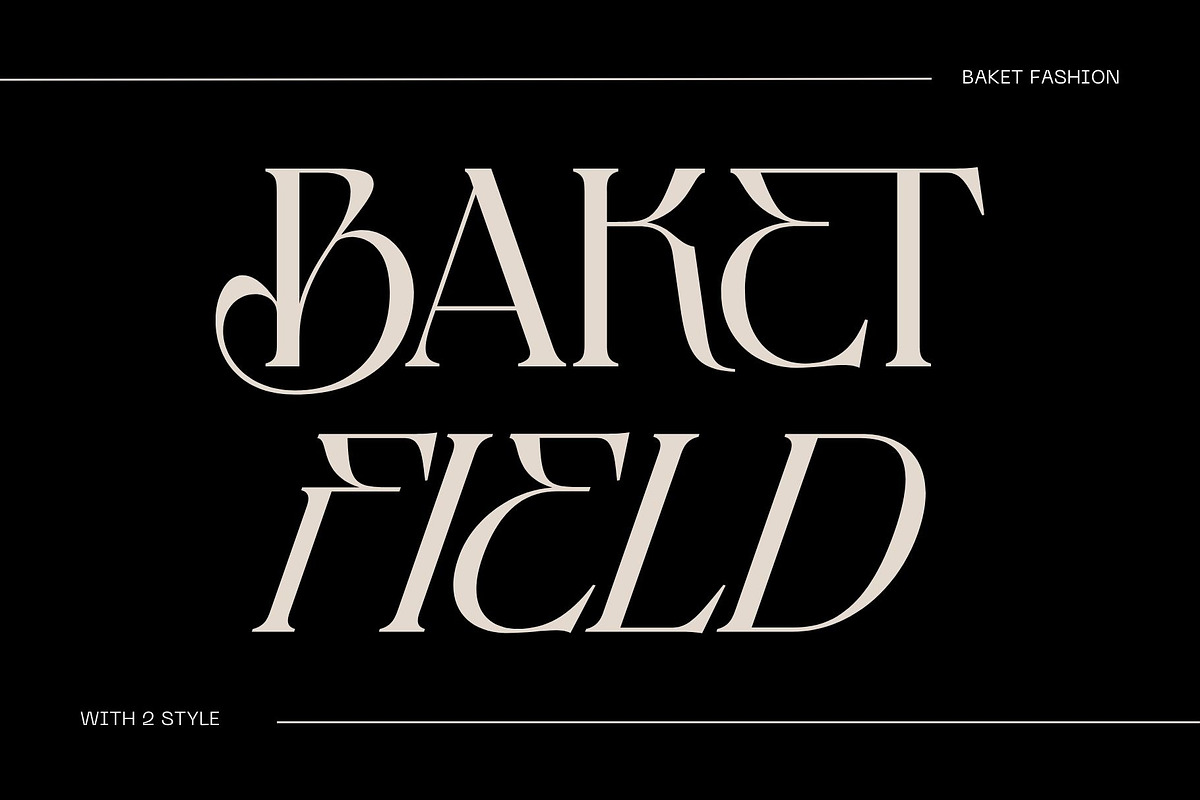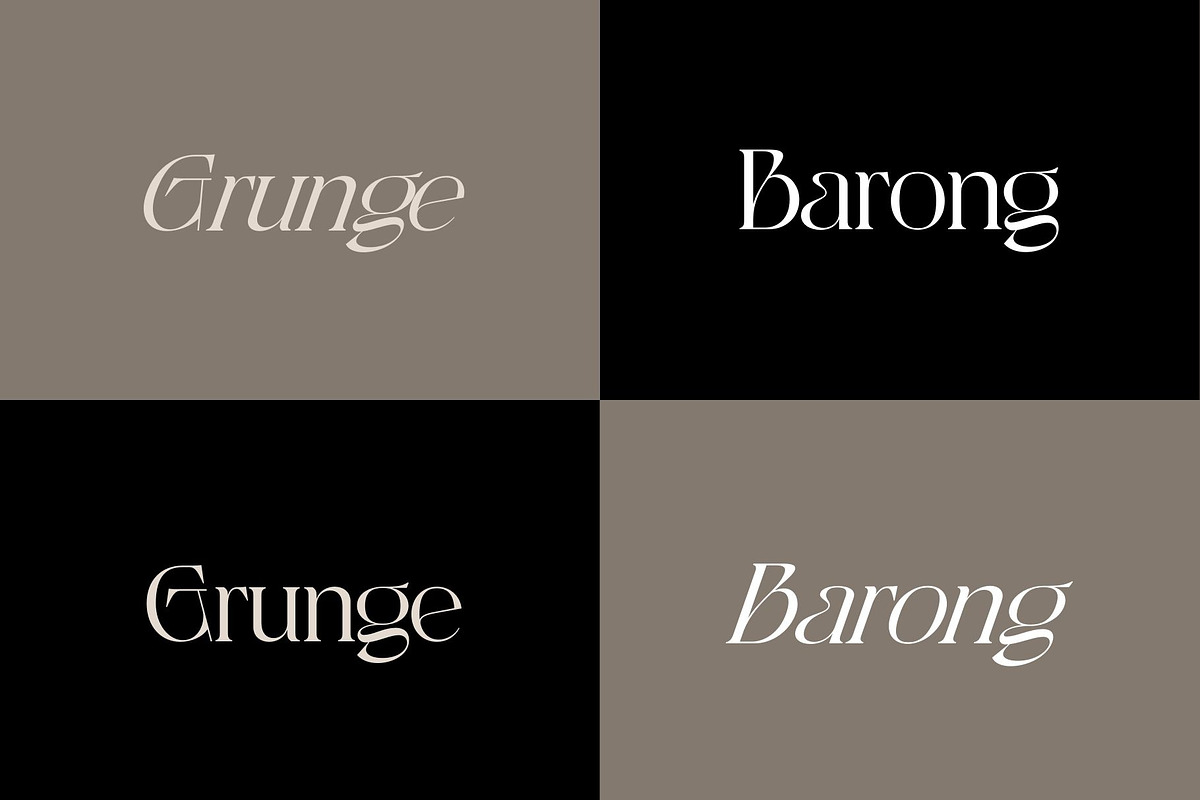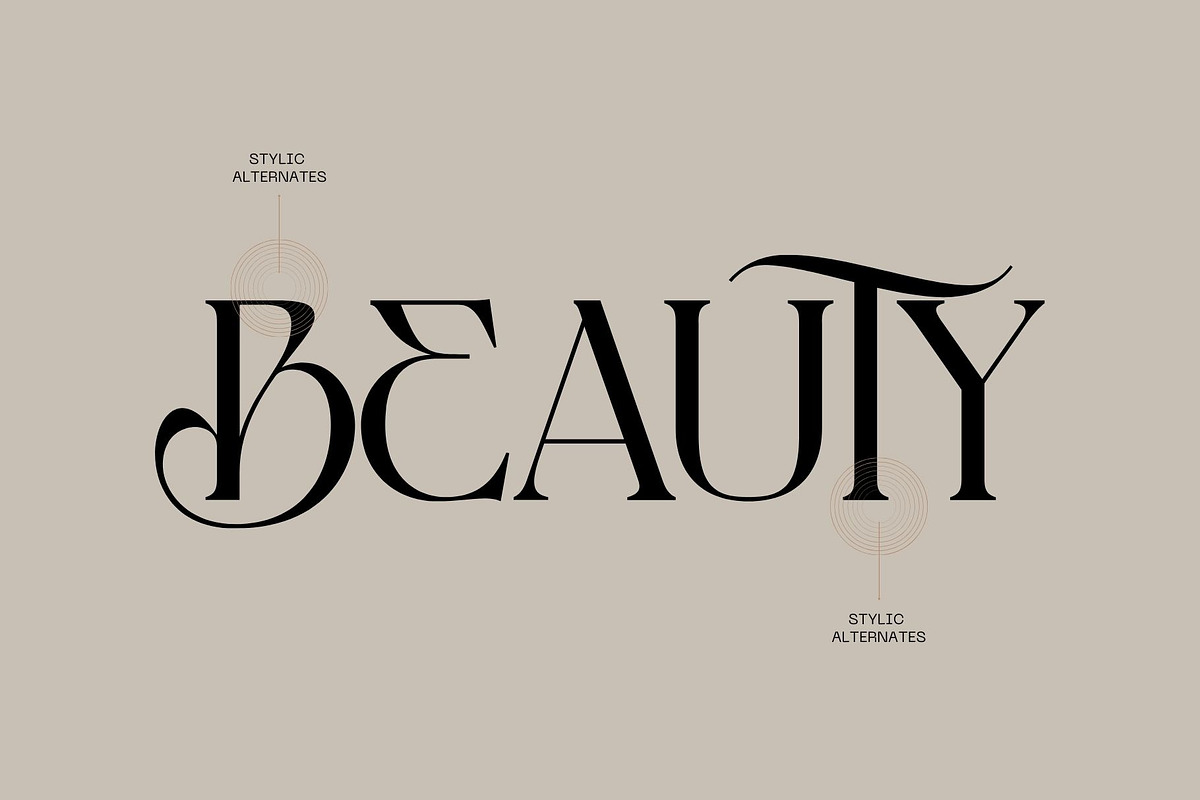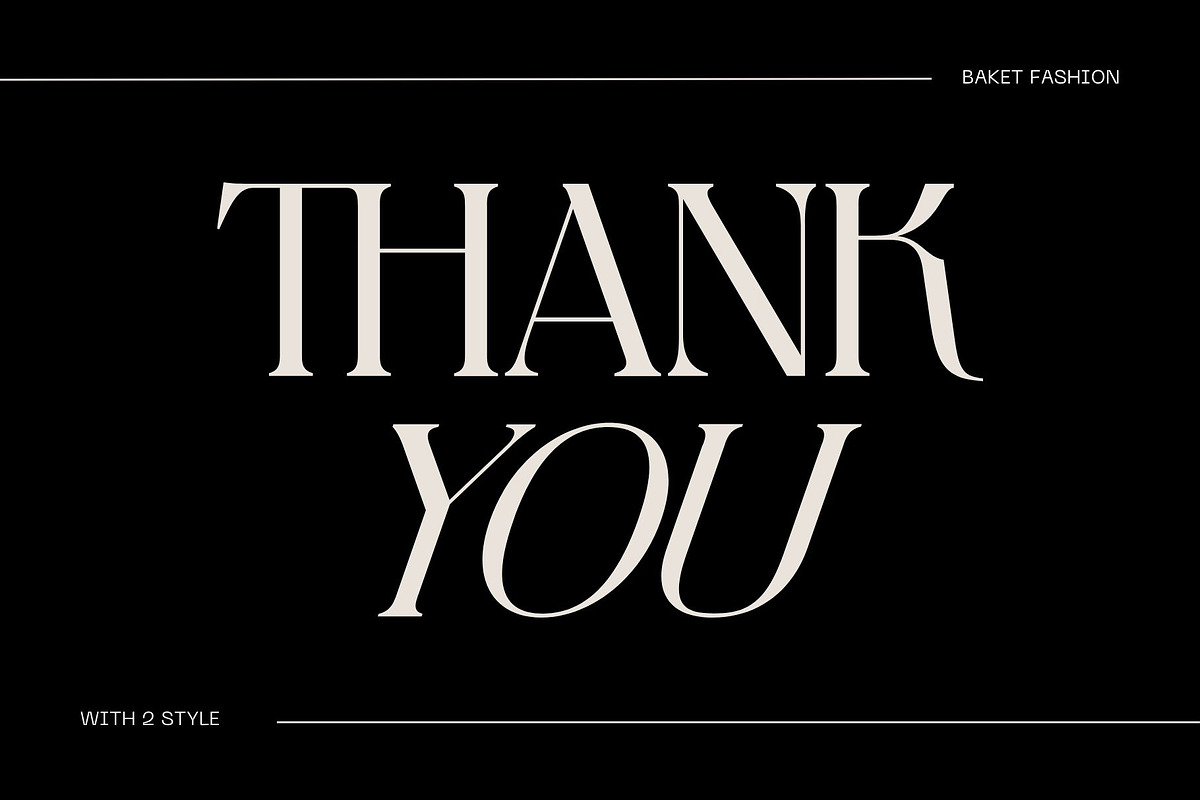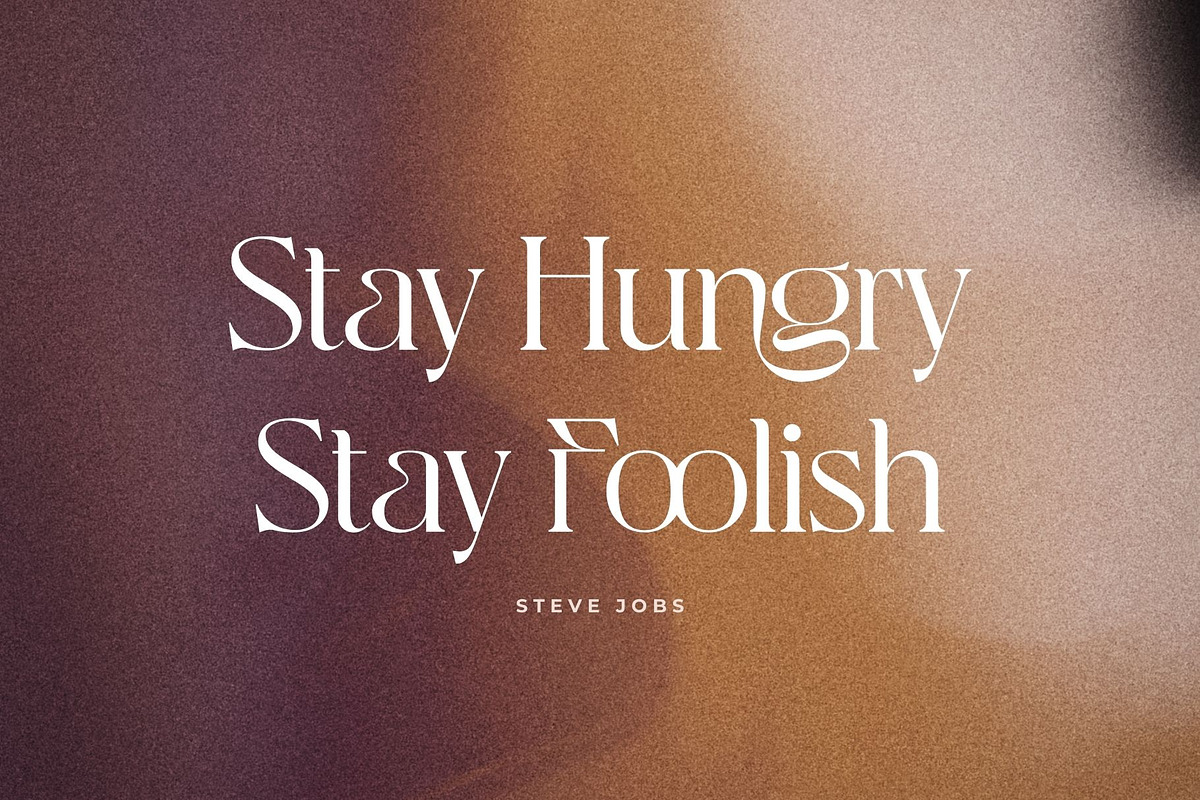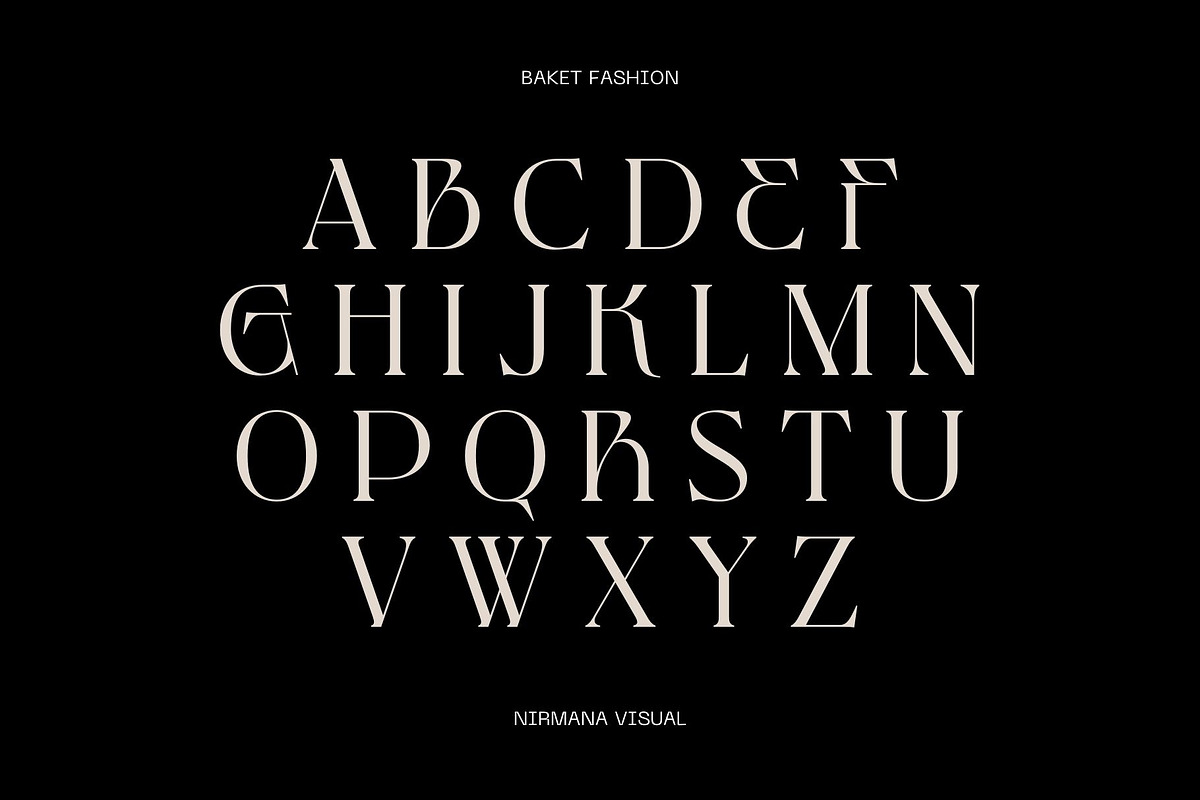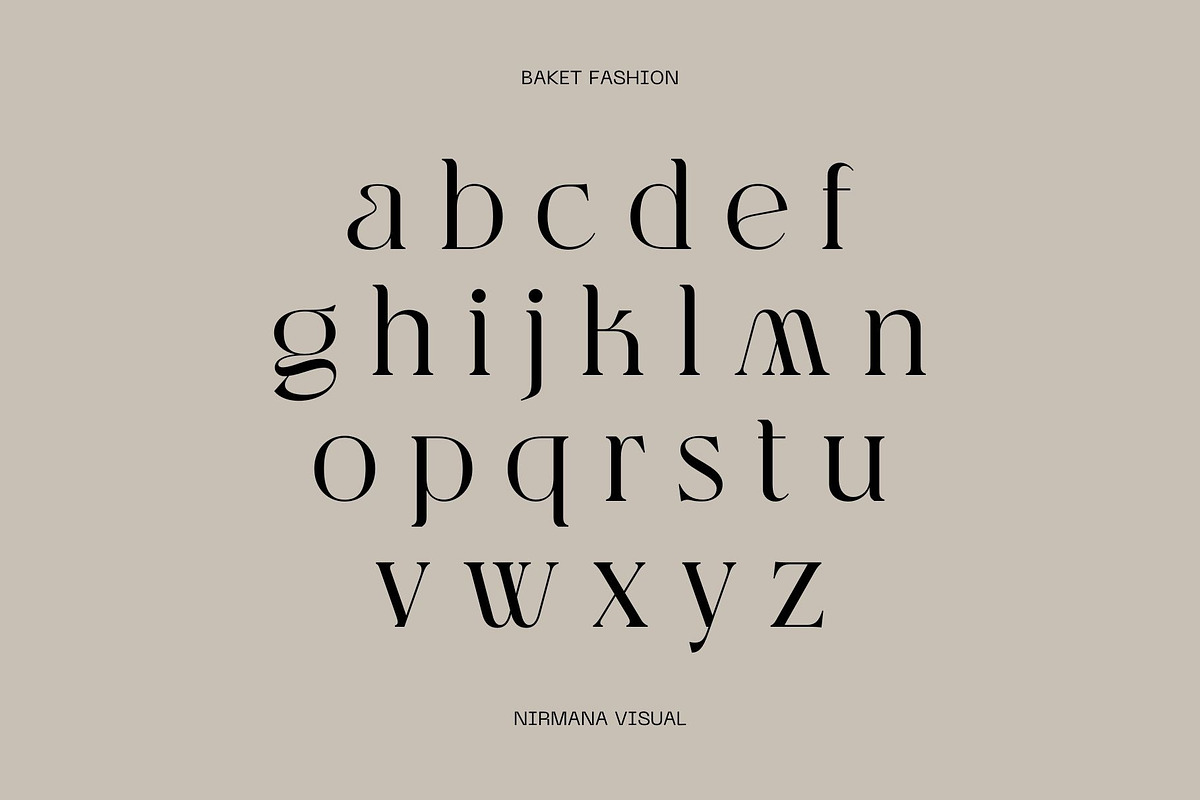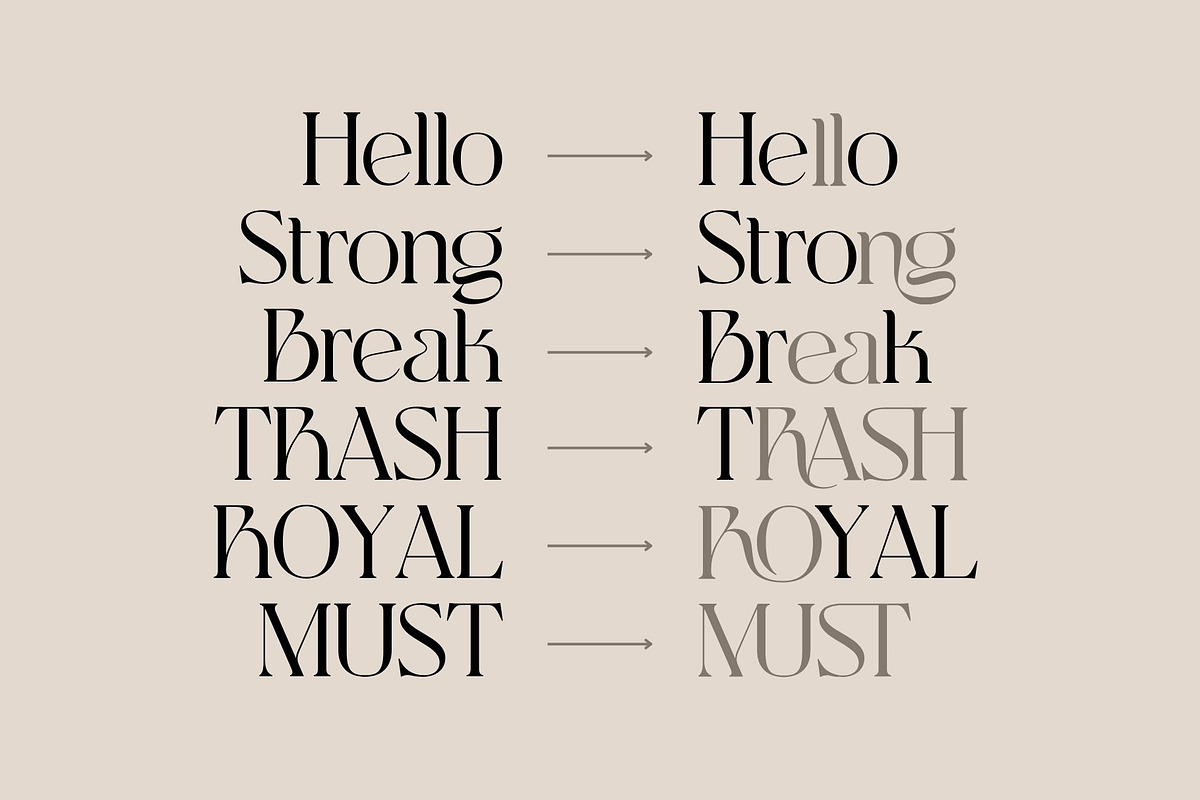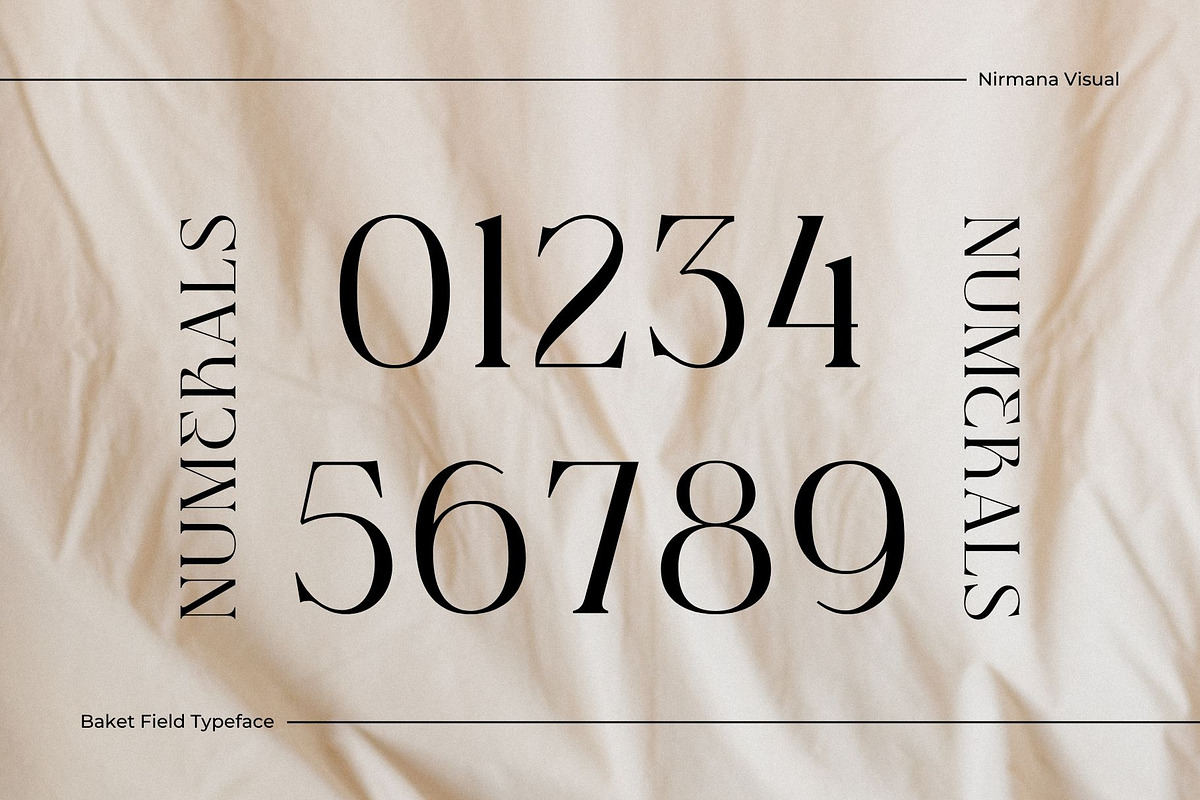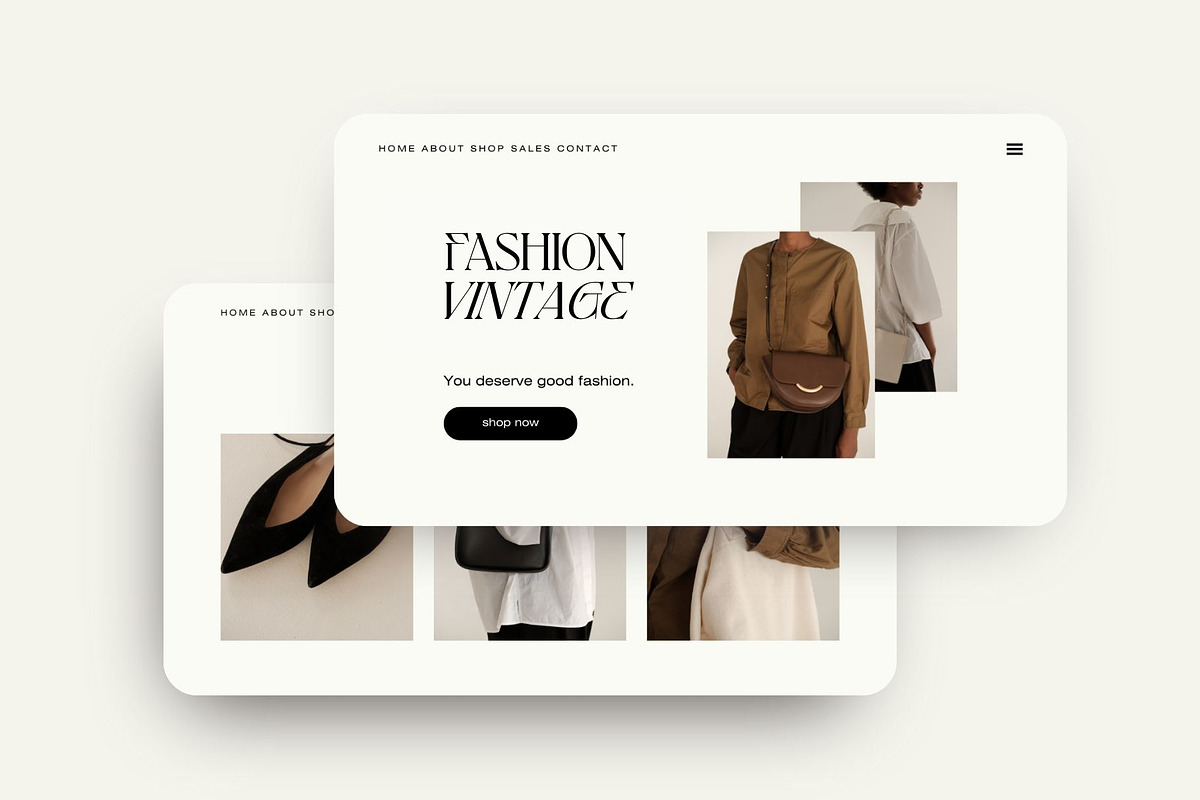
Baket Fashion - Display Serif
Baket Fashion, Serif Display Typeface.
Baket Fashion offers beautiful typographic harmony for a diversity of design projects, including logos & branding, social media posts, advertisements & product designs.